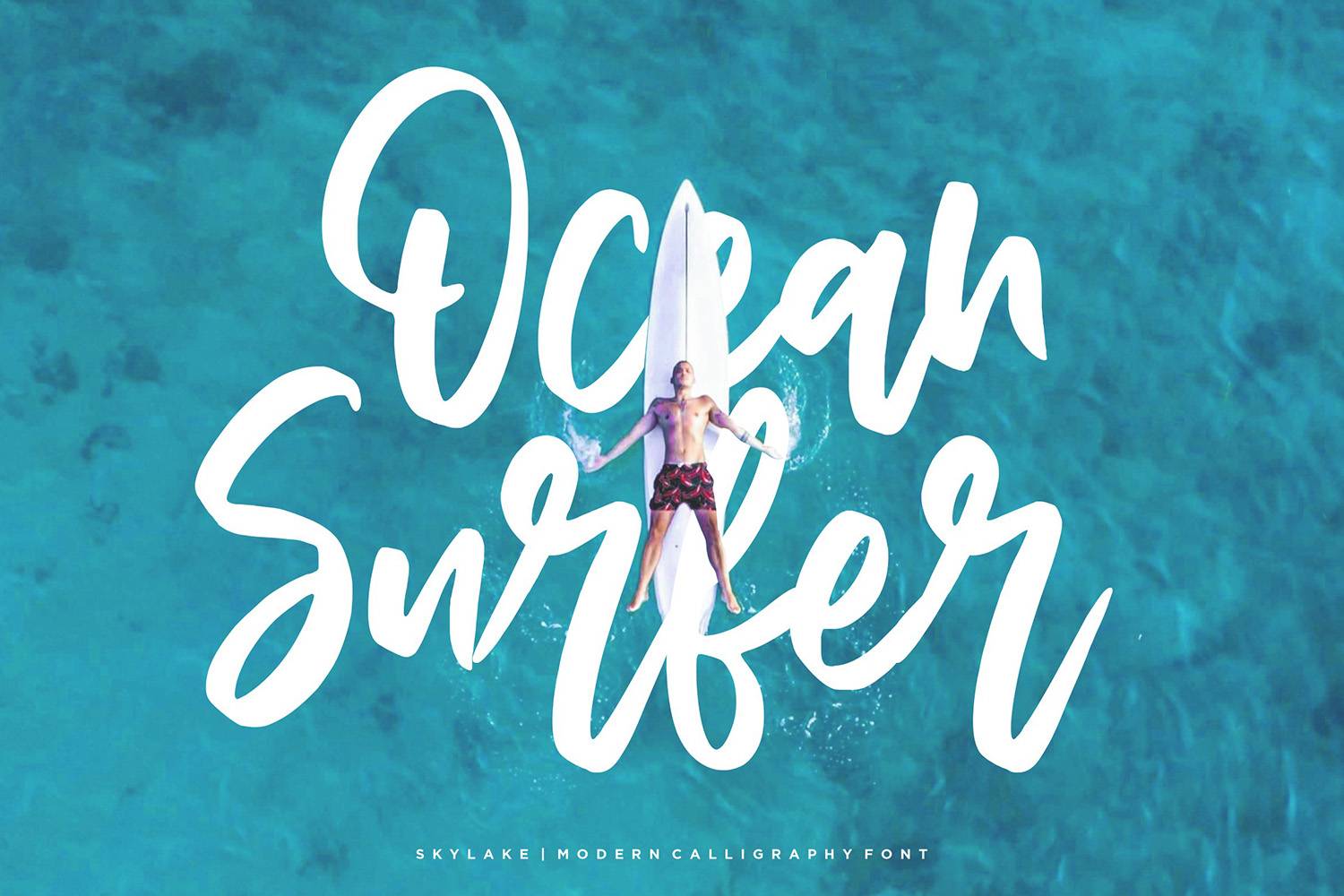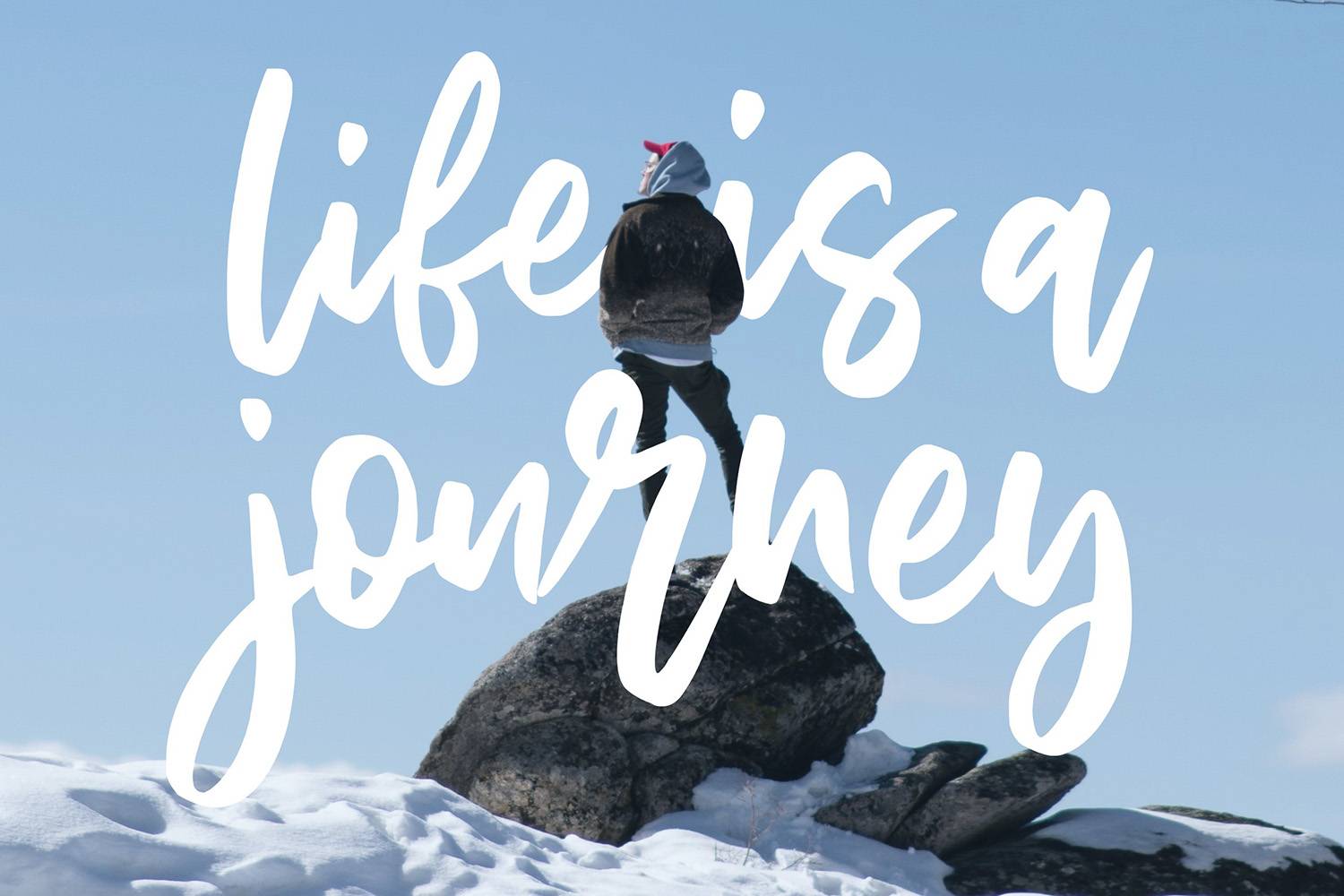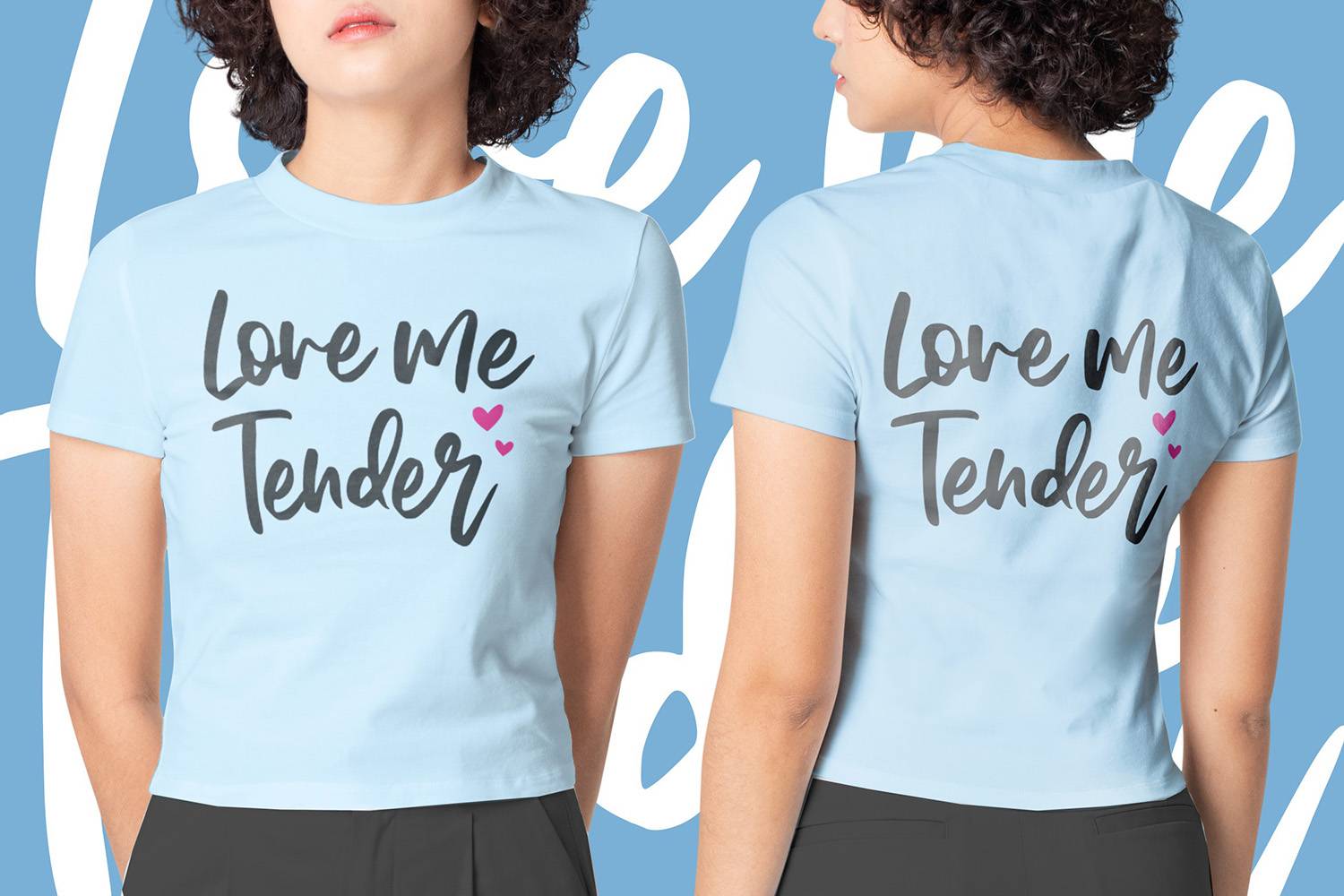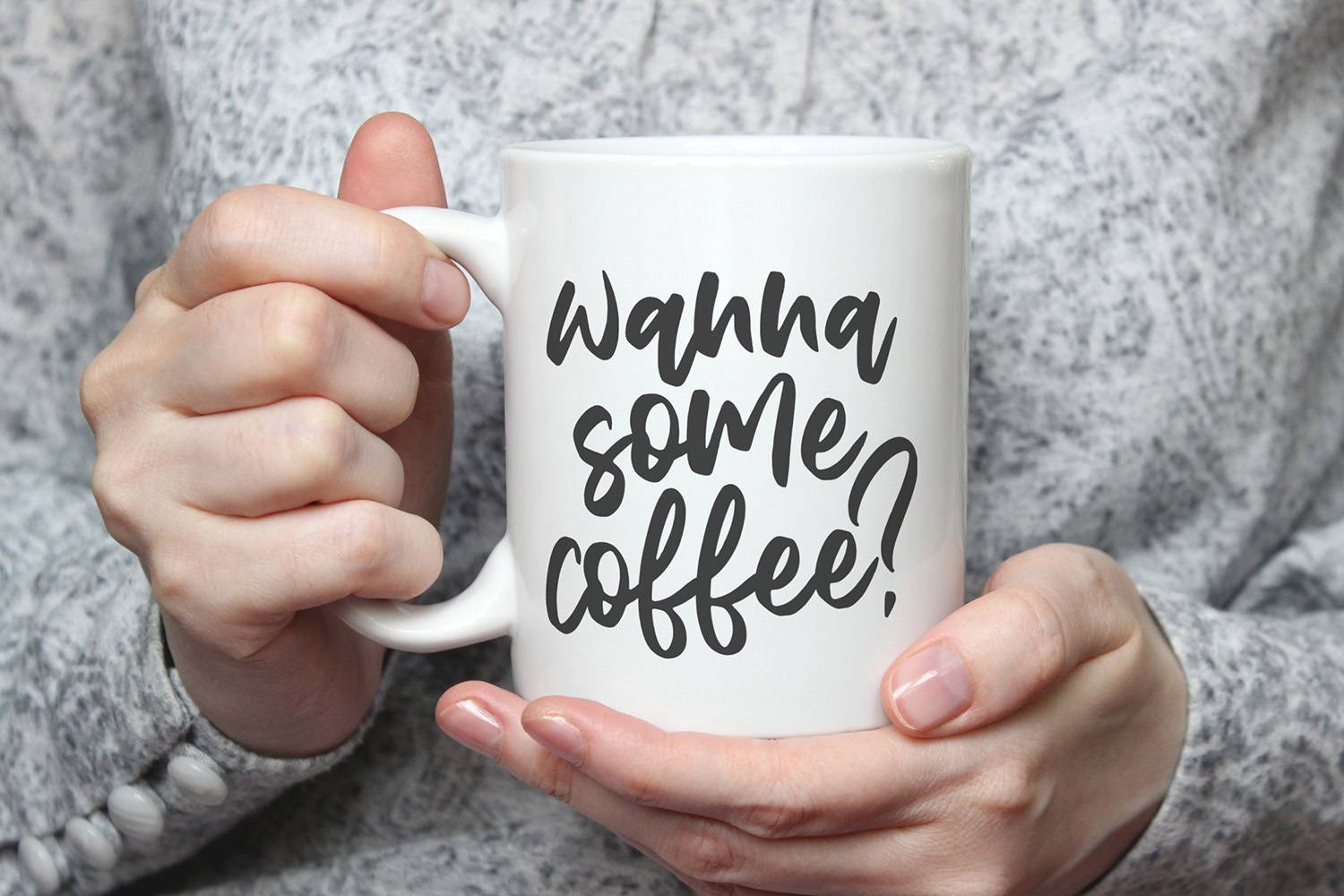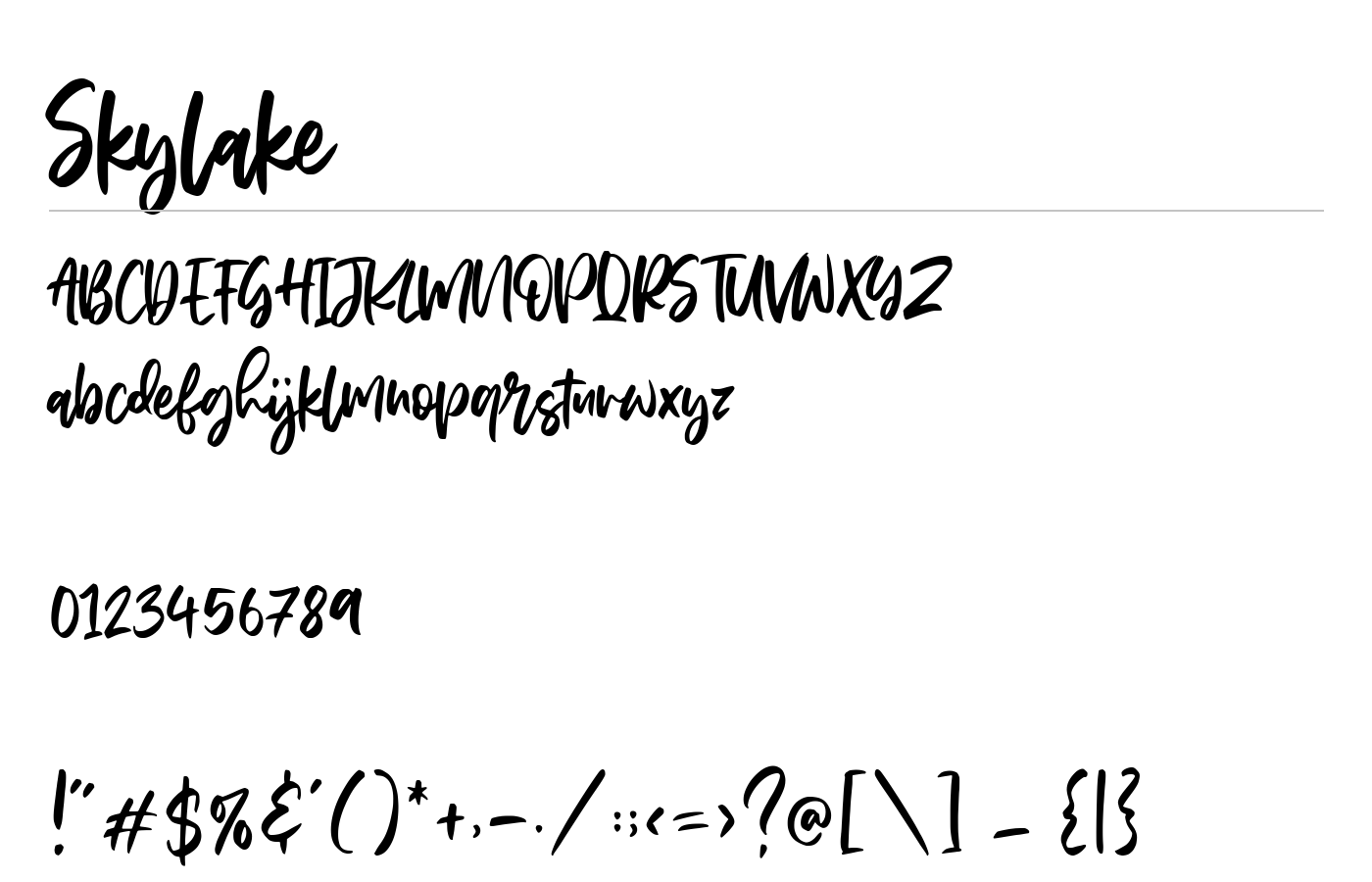
Skylake is a playful and lively handwritten script font with a casual, organic feel. Its smooth, flowing strokes and moderate contrast create a friendly and approachable style, ideal for creative branding, invitations, and social media graphics that seek an informal yet stylish touch. This font shines in headlines or display text where personality and warmth are key.
Skylake Font
About Skylake Font